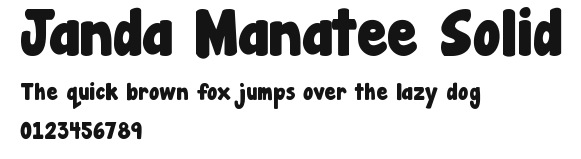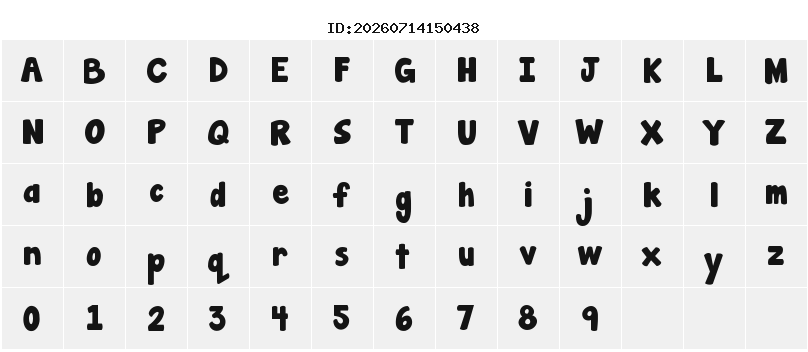
• Font Name: Janda Manatee Solid
• Full Font Name: Janda Manatee Solid
• Designer: Kimberly Geswein
About Janda Manatee Solid.ttf
Janda Manatee Solid.ttf is a modern, elegant sans-serif font designed for ultimate readability and visual harmony. Perfect for branding, headlines, web design, and print materials.